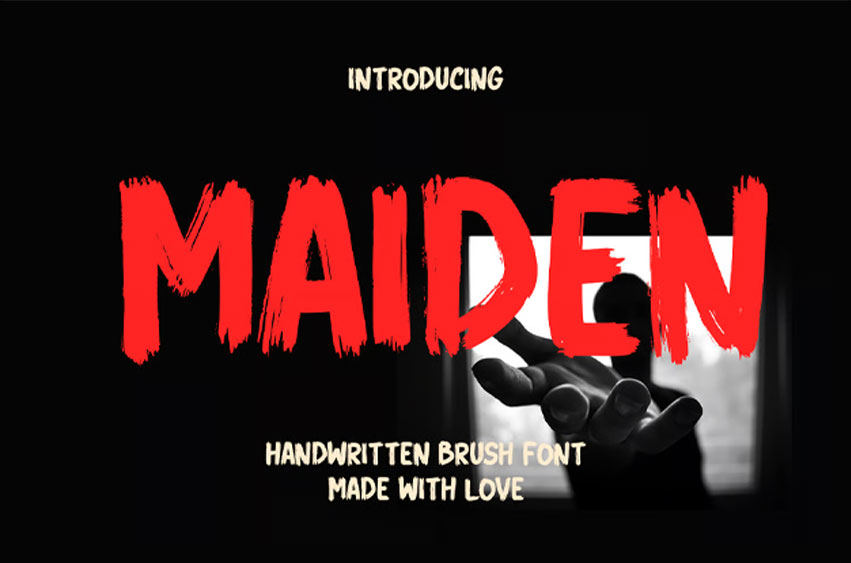
Maiden Font is a handwritten brush font designed with smooth strokes and natural hand-painted character. Inspired by the beauty of authentic brush lettering, this font combines organic flow with expressive personality.
Its lively curves and balanced rhythm create a warm and stylish appearance while maintaining strong readability.